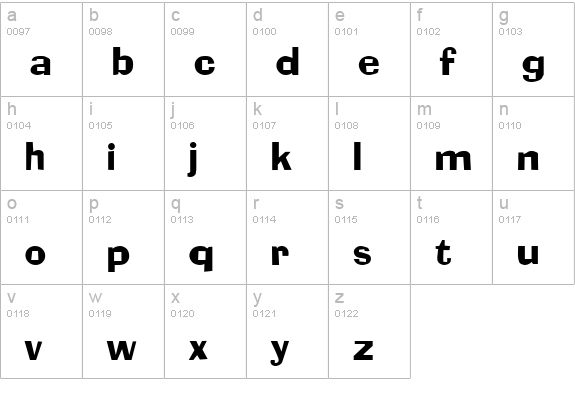
Socket Regular Font Details
Socket Regular is the standard, neutral variant in the Socket typeface family \xE2\x80\x94 well suited to general body text, paragraphs, and standard typographic work.
Socket Regular is a sleek and modern font that is perfect for adding a touch of sophistication to any design project. Its clean lines and balanced proportions make it versatile and easy to read, making it suitable for a wide range of applications, from branding and advertising to website design and packaging. This font features a unique combination of sharp edges and rounded corners, giving it a contemporary and trendy look. The characters are meticulously designed, with attention to detail in every curve and stroke. The result is a font that is both visually appealing and highly legible, ensuring that your message is communicated effectively. What sets Socket Regular apart is that it is not only aesthetically pleasing, but it is also freely available to download at FontsMarket.com. This means that you can access this high-quality font without any cost, making it an excellent choice for budget-conscious designers or anyone looking to enhance their creative projects without breaking the bank. Whether you are working on a personal project or designing for a client, Socket Regular is a font that will make a lasting impression. Its versatility, modernity, and accessibility make it a valuable addition to any designer's toolkit. So why wait? Head over to FontsMarket.com and download Socket Regular today to elevate your designs to new heights.